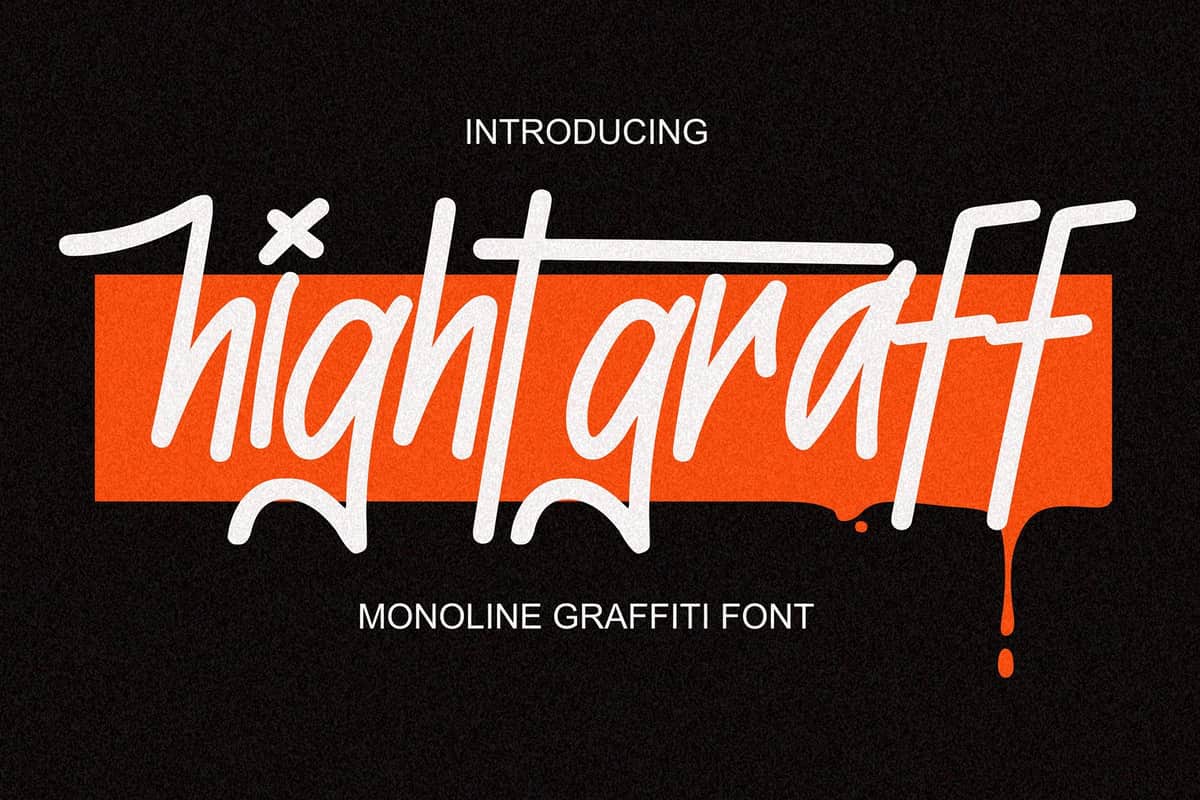
Hightgraff
Get ready to elevate your designs with Hightgraff – the monoline graffiti font that merges sleek sophistication with urban edge. More than just a font, Hightgraff is a versatile tool for crafting bold and stylish graffiti-inspired designs that capture attention and leave a lasting impression.